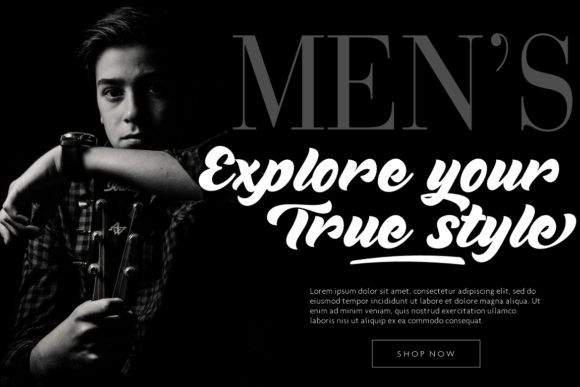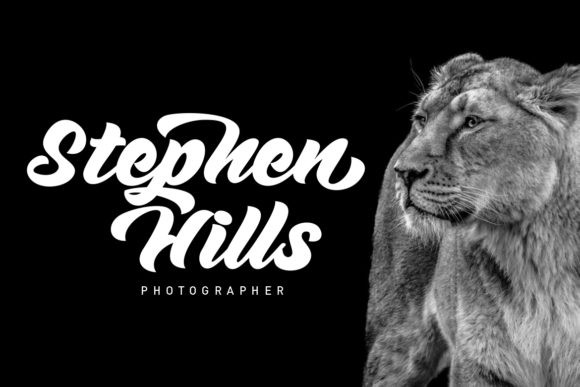
Tahu Bullats Font
Tahu Bullats is a bold, yet sophisticated script font. It’s great for branding, logo designs, lettering, logotype, clothing, posters, magazines, and much more!